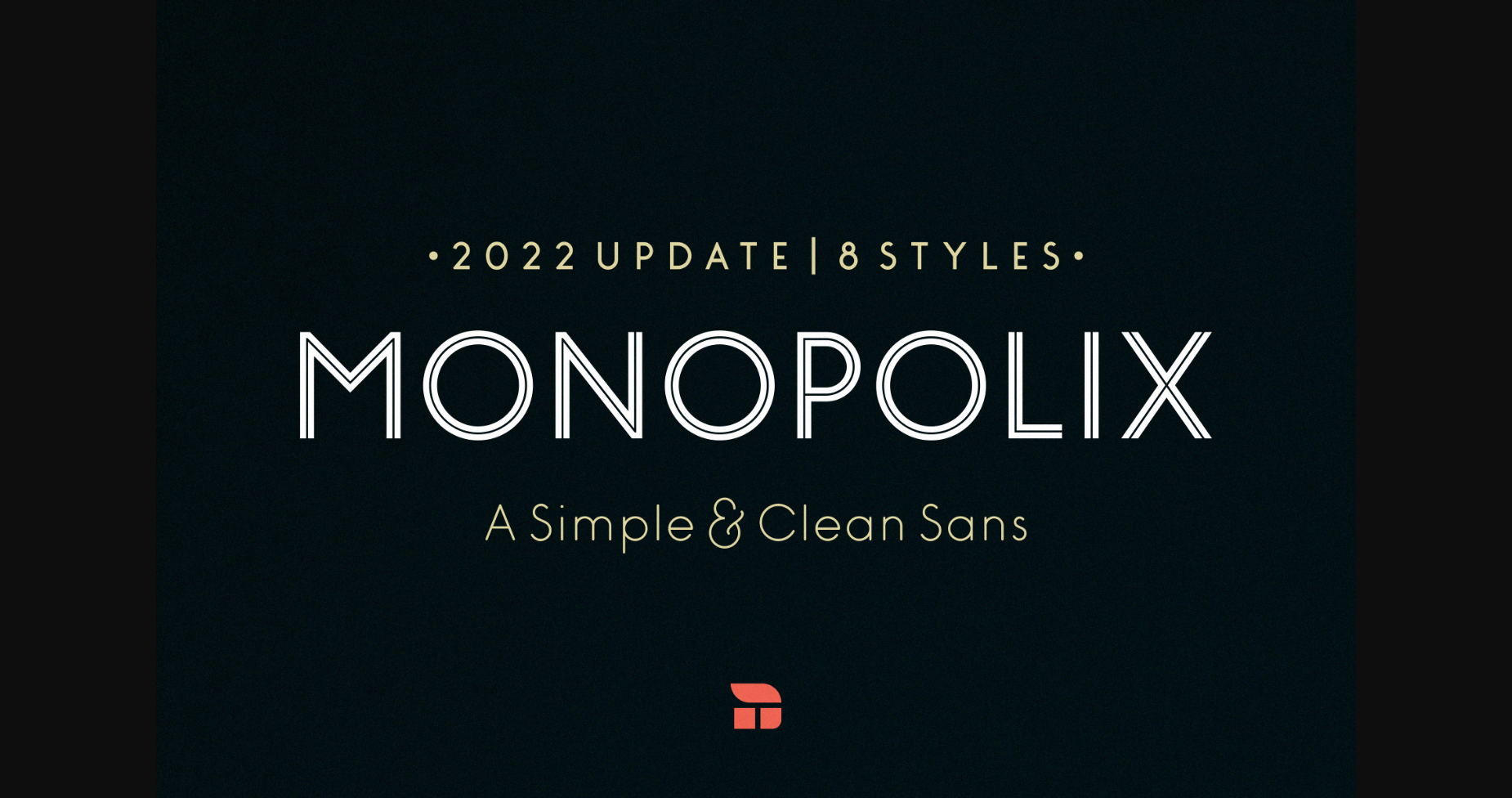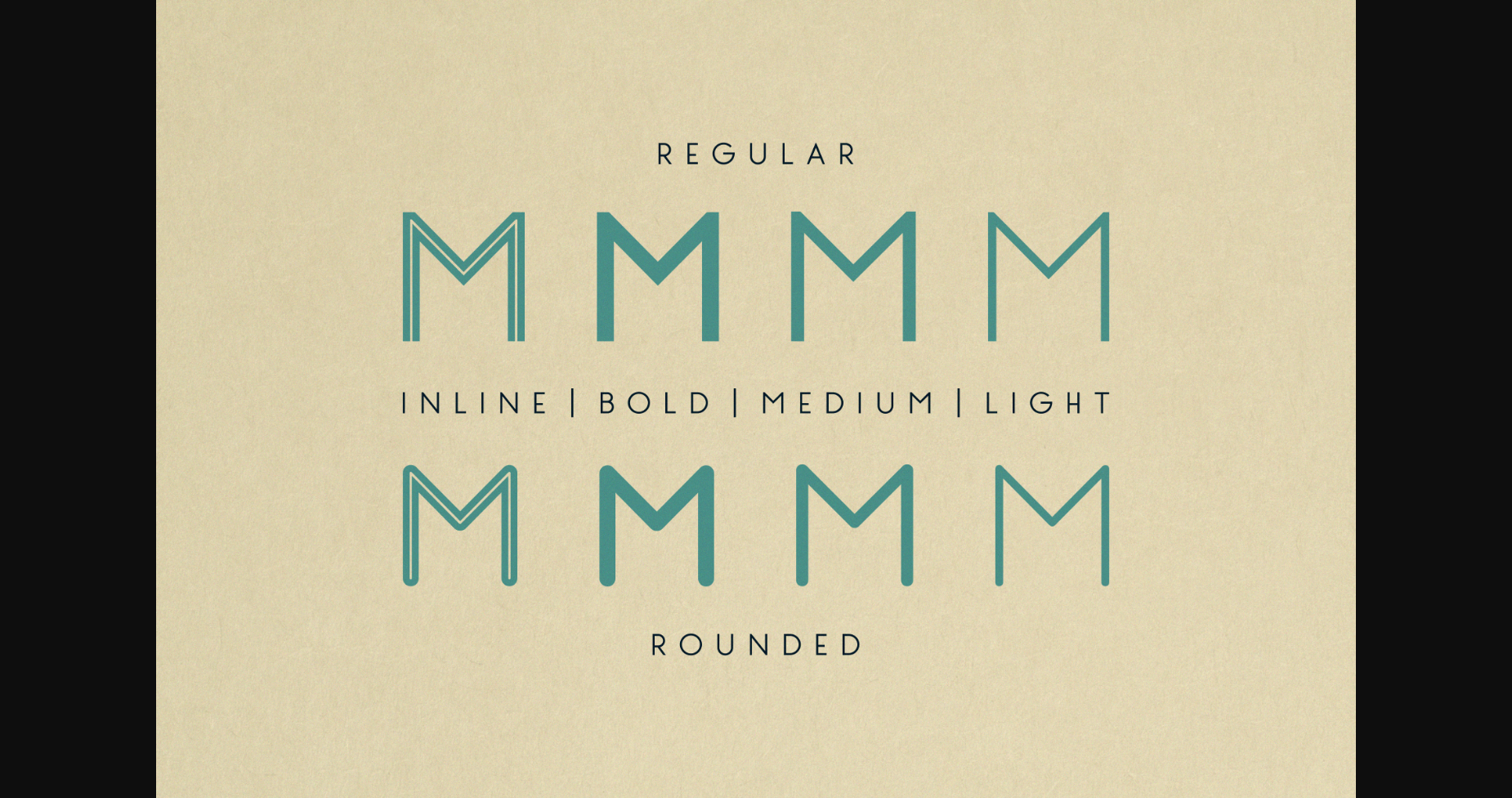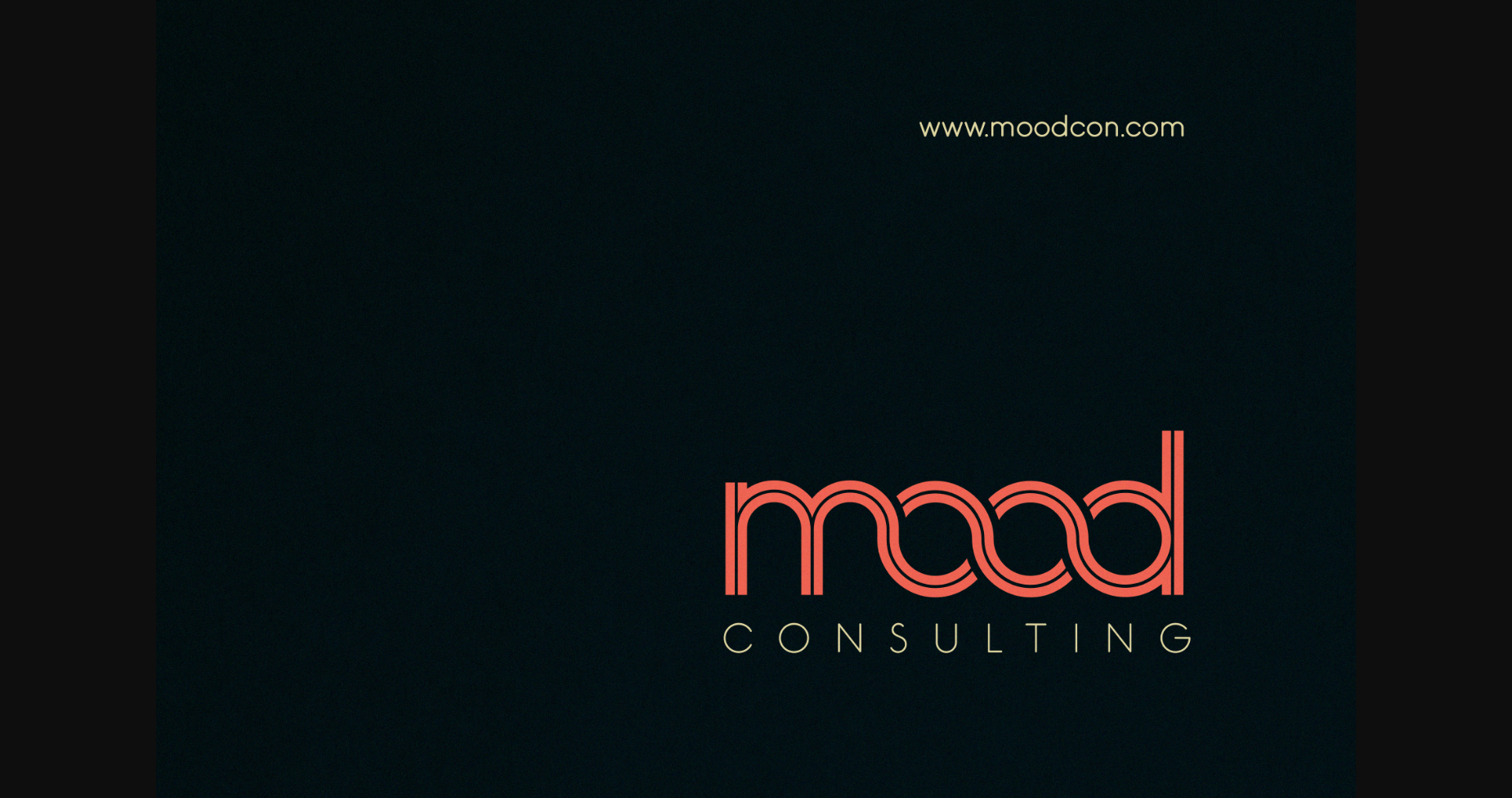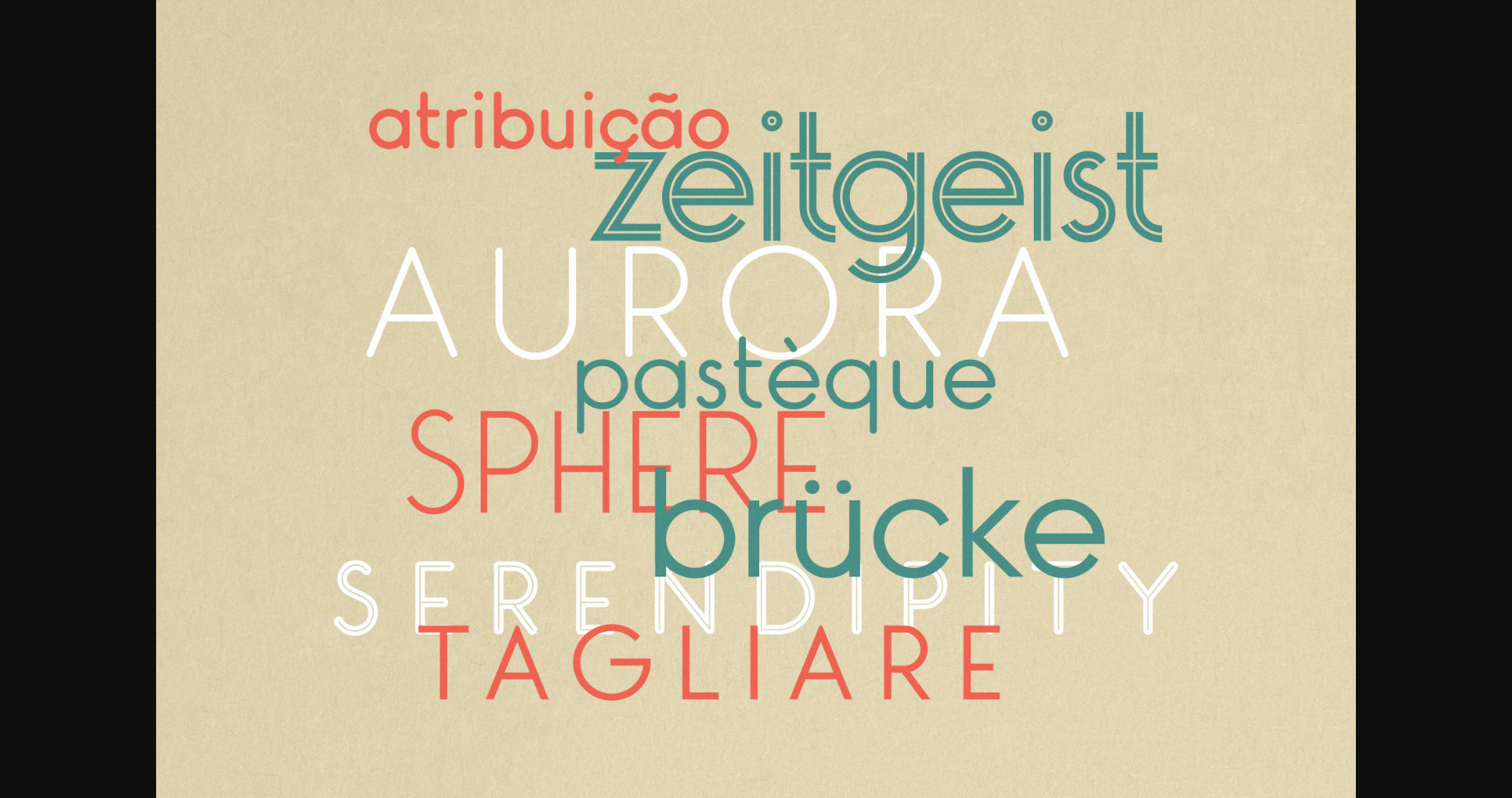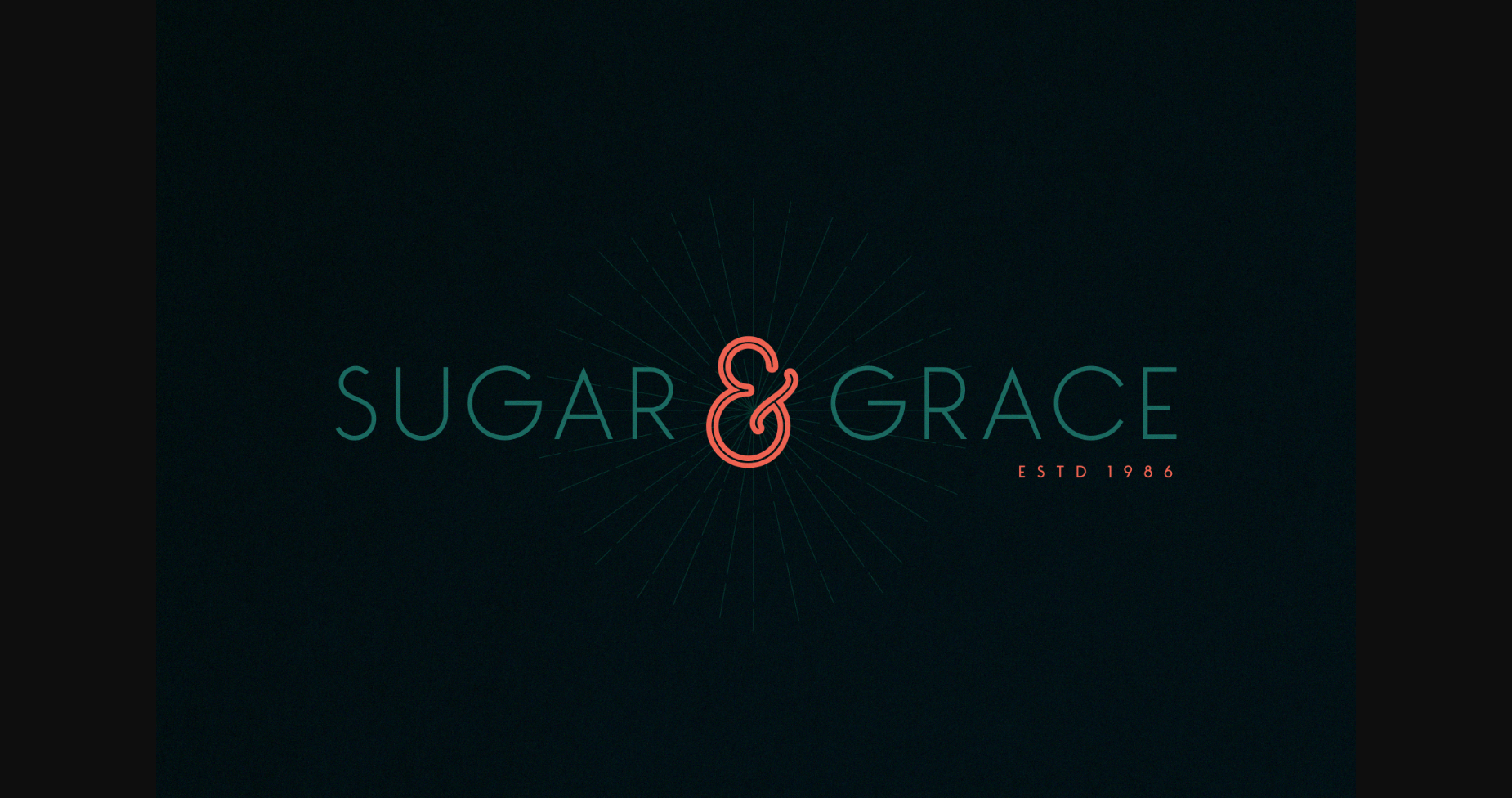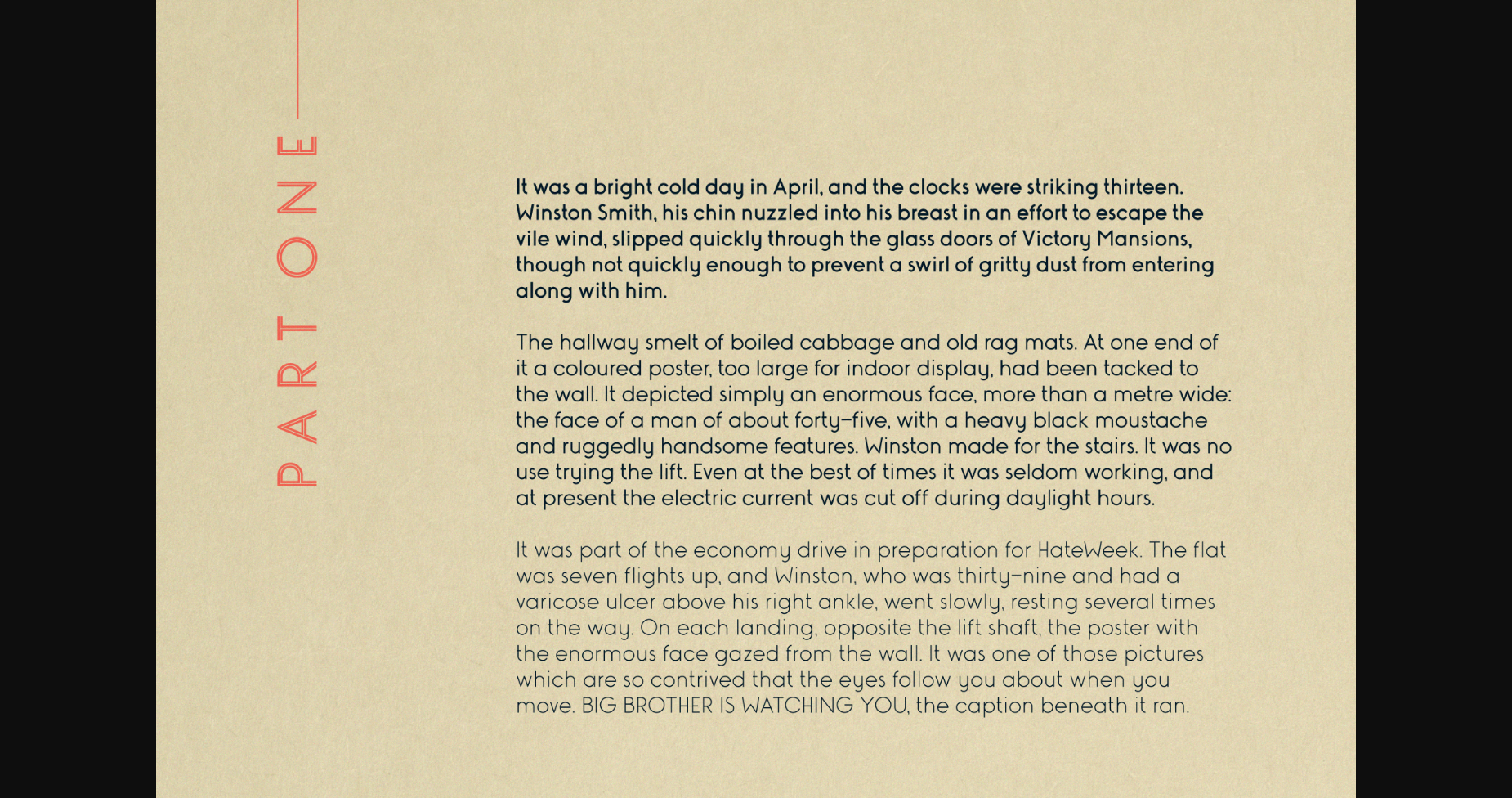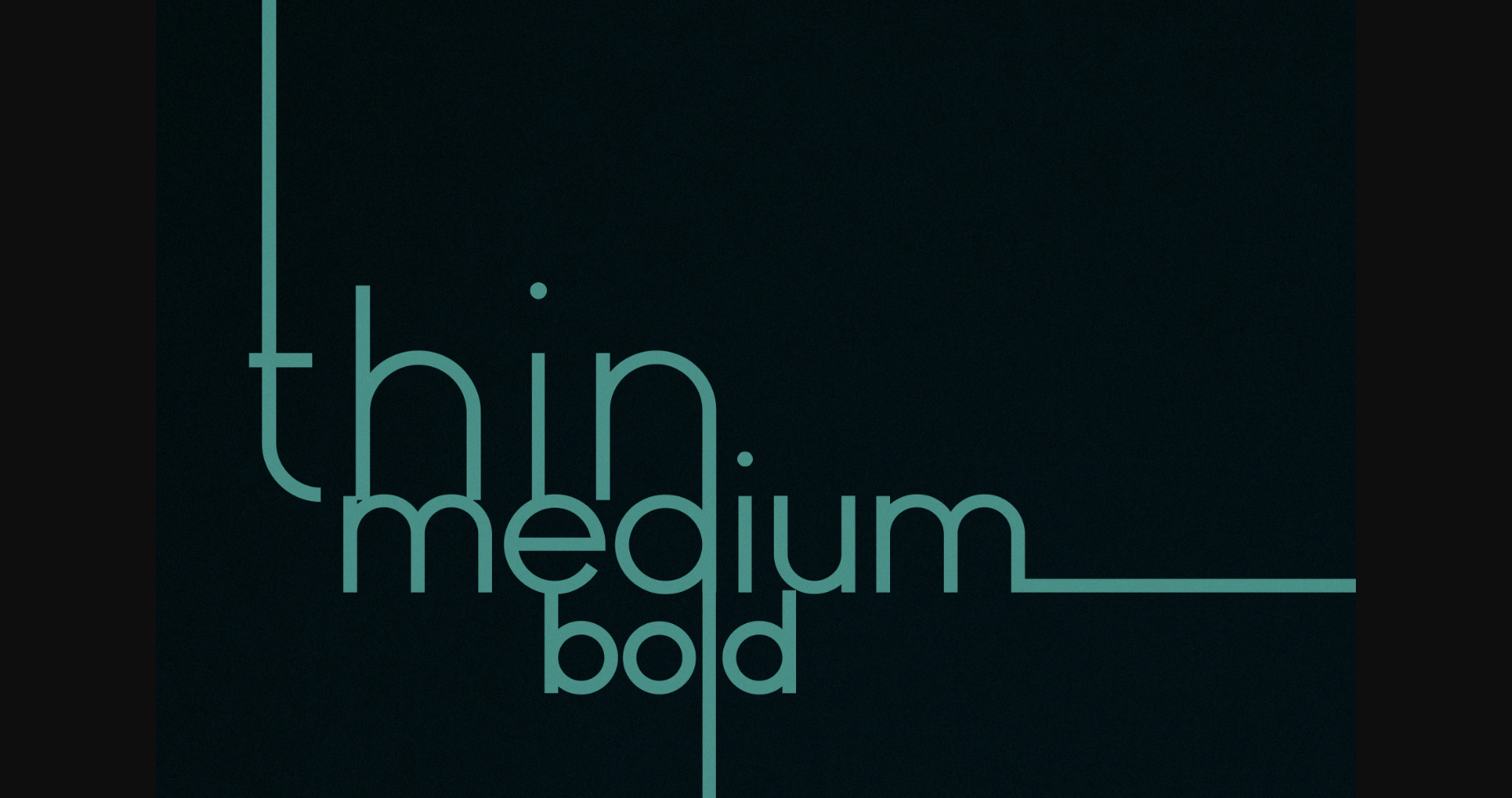
About Monopolix Font
Monopolix* (previously Monopoly) is a modern, simple, and clean monolinear sans-serif typeface.
As a display typeface, this is useful for posters, logotypes, titles, and short text in general.